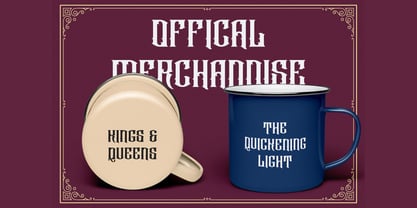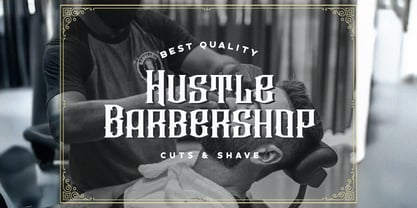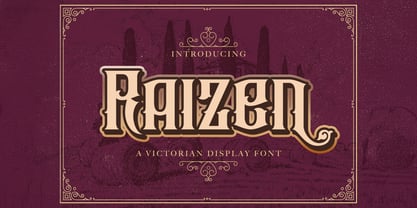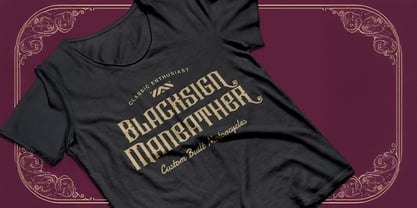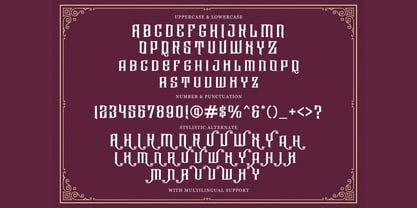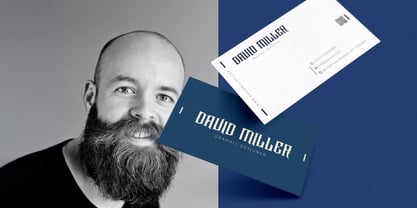
La familia tipográfica Raizen fue diseñada por Virgiawan Listanto y publicada por Stringlabs Creative Studio. Raizen contiene 1 estilos.
Raizen is a richly detailed Victorian style font that brings classic elegance and vintage drama to your designs. With its ornate serifs, intricate curves, and timeless charm, this typeface captures the grandeur of the 19th century perfect for projects that demand historical flair with a modern twist. Ideal for logos, packaging, book covers, and signage, Raizen delivers old-world sophistication with a bold personality.
Raizen